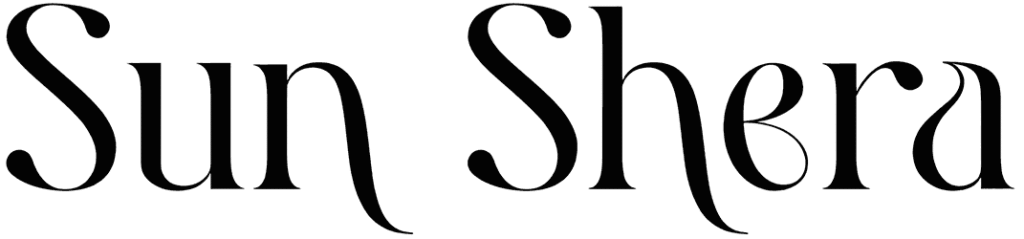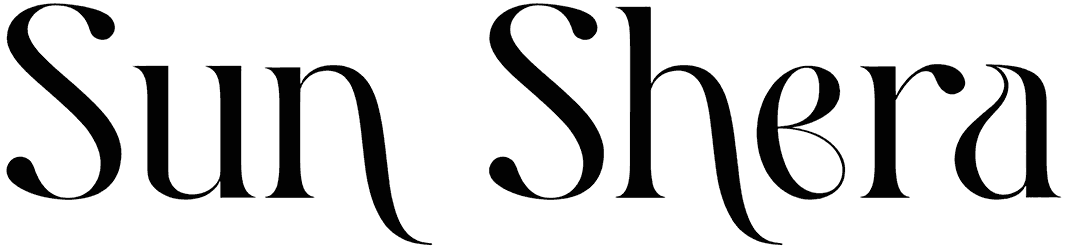
Sun Shera Font
Designed byToniStudio
Most of the time, you can count on a classic letterform like this serif font to create an amazing layout. The timeless and noble visual of this elegant font will give a ravishing vibe to your words. Let’s benefit from the Sun Shera font for your next presentation and create a mesmerizing project that will make your name memorable.